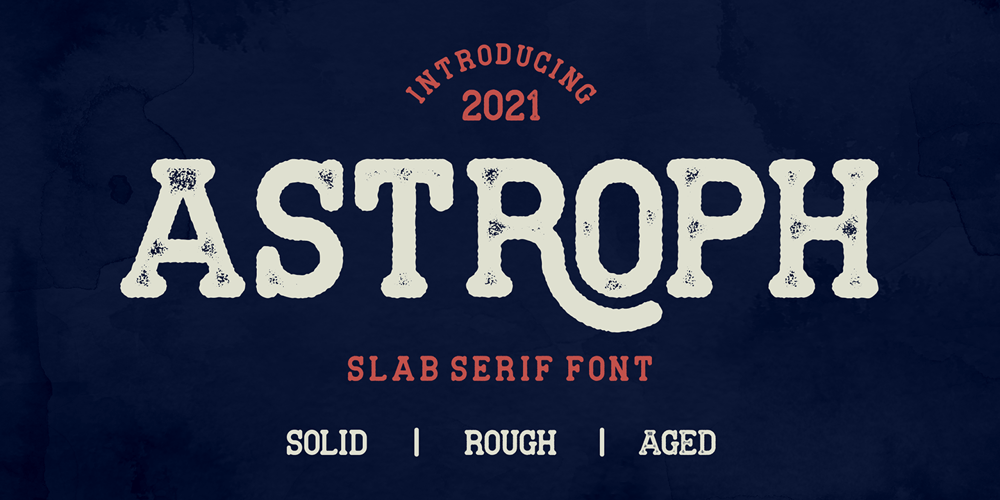
Astroph Font Family was designed by Icep Anwar Fadhil and published by Figuree Studio. Astroph contains 3 styles and family package options. Astroph – Retro Slab Serif FontAstroph Slab Serif font is perfect for your upcoming projects. Such as logo branding, editorial design, fashion, adventure apparel, stationery design, sport design, blog design, modern advertising design, card invitation, badge, art quote, home decor, book/cover title, special events, and more.Astroph is coming with 3 Styles: Astroph Regular Astroph Rough Astroph Aged That’s it! Have fun with Astroph Slab Serif Font. Thank you!Figuree Std